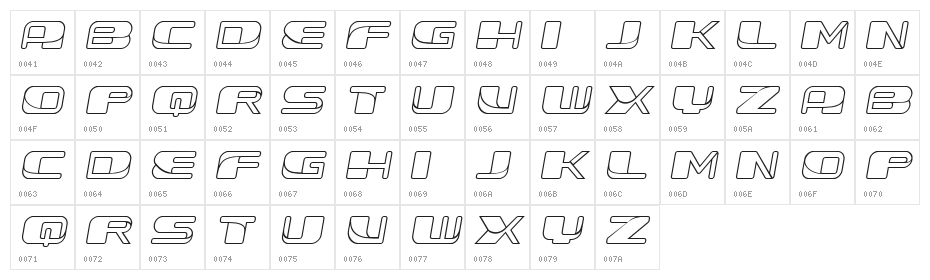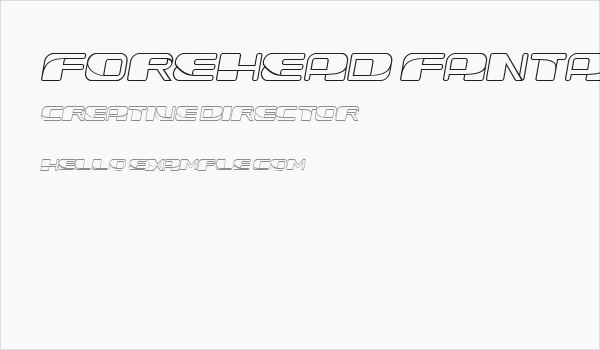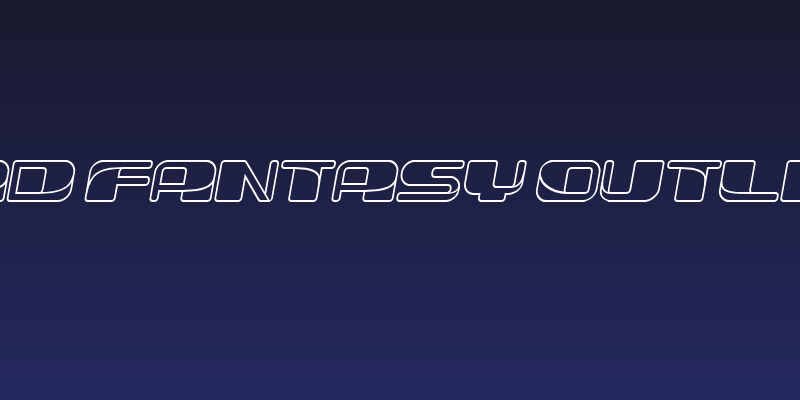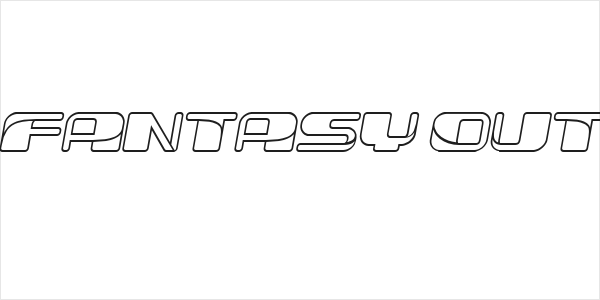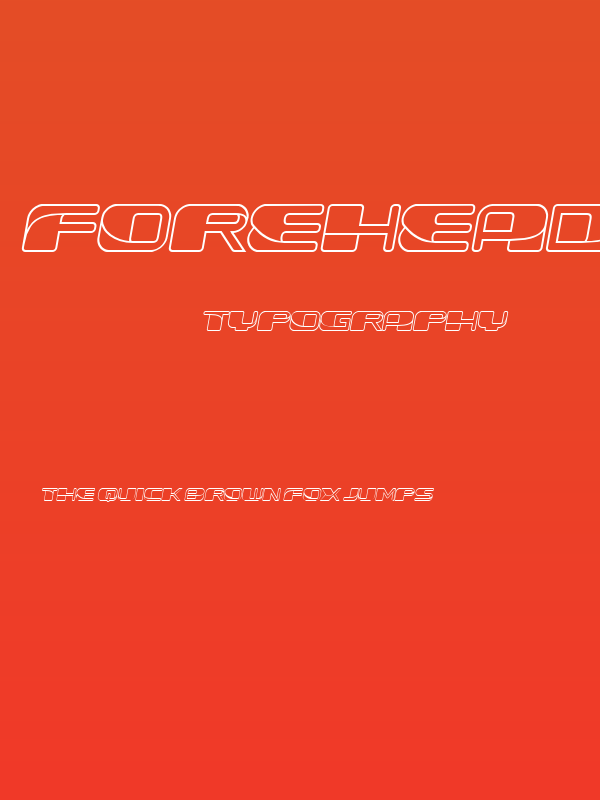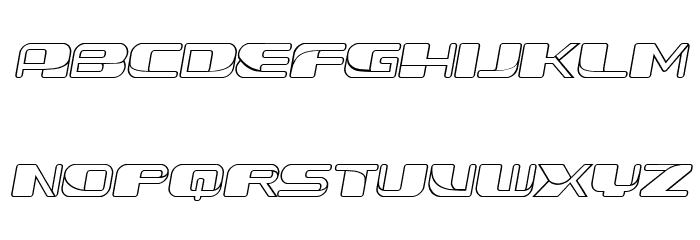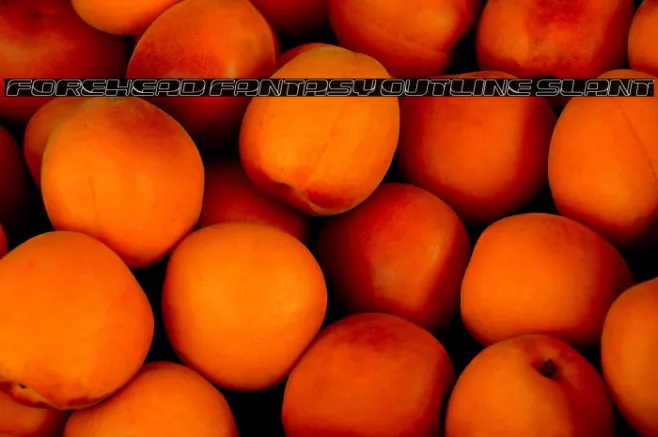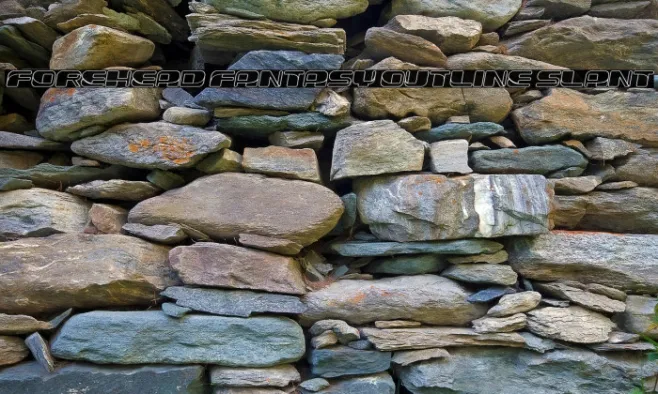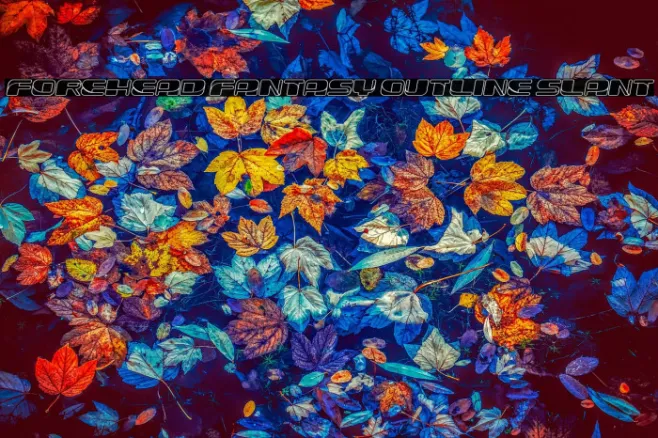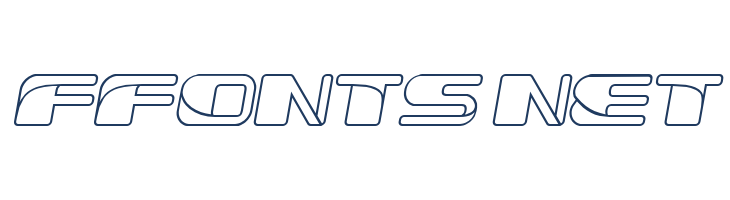
Forehead Fantasy Outline Slant Font
This font features a unique outline style with a slanted, futuristic appearance. Each character is designed with a hollow interior, giving it a lightweight and airy feel. The geometric shapes are consistent throughout, with smooth curves and sharp angles that create a dynamic and modern look. The uppercase letters are bold and prominent, making them ideal for attention-grabbing headlines or titles. The font's structure is clean and precise, with a consistent stroke width that maintains readability despite its decorative nature. The slant adds a sense of motion and energy, enhancing its appeal for creative and contemporary projects.